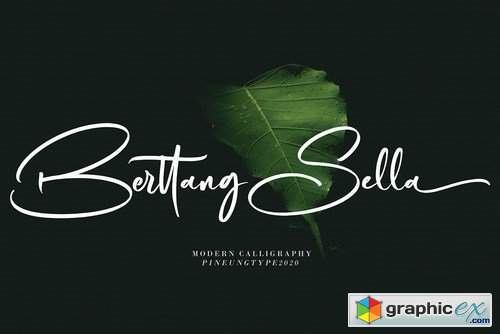
Berttang Sella
Berttang Sella font with new style, this font will perfect for many different project ex: quotes, logo, blog header, poster, banding, fashion, apparel, letter, invitation, stationery, etc...